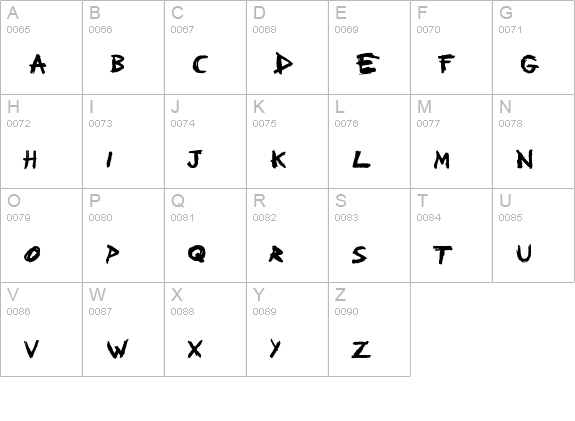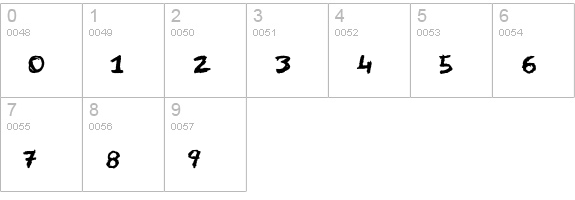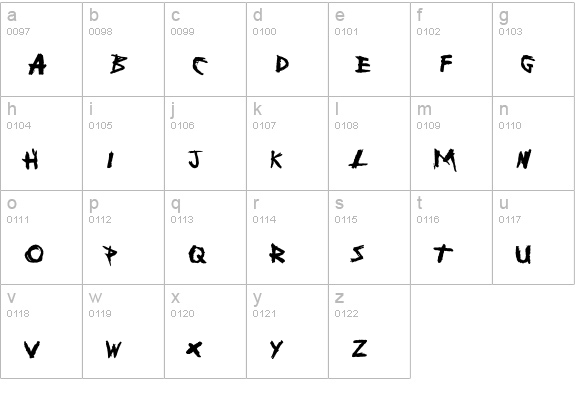
People Are People Font Details
People Are People font is a stunningly creative and versatile typeface that is perfect for adding a touch of personality to any design project. With its unique and eye-catching letterforms, this font is sure to make a lasting impression. Whether you are designing a logo, crafting a marketing campaign, or creating eye-catching social media graphics, People Are People font will elevate your work to new heights. Its bold and distinctive characters are designed to grab attention and captivate audiences. What sets People Are People font apart is not just its aesthetic appeal, but also its accessibility. This font is freely available to download at FontsMarket.com, making it a valuable resource for both professional designers and casual enthusiasts alike. Its availability at no cost allows for easy incorporation into any project, without the burden of additional expenses. Additionally, People Are People font offers a wide range of weights and styles, providing endless possibilities for customization. Whether you prefer a bold and impactful look or a more subtle and elegant design, this font has you covered. Its versatility ensures that it can adapt to various design needs, making it an indispensable tool in any designer's arsenal. With its striking visual appeal, easy accessibility, and flexibility, People Are People font is a must-have for anyone looking to add a touch of uniqueness to their designs. Download it for free at FontsMarket.com and unleash your creativity today!